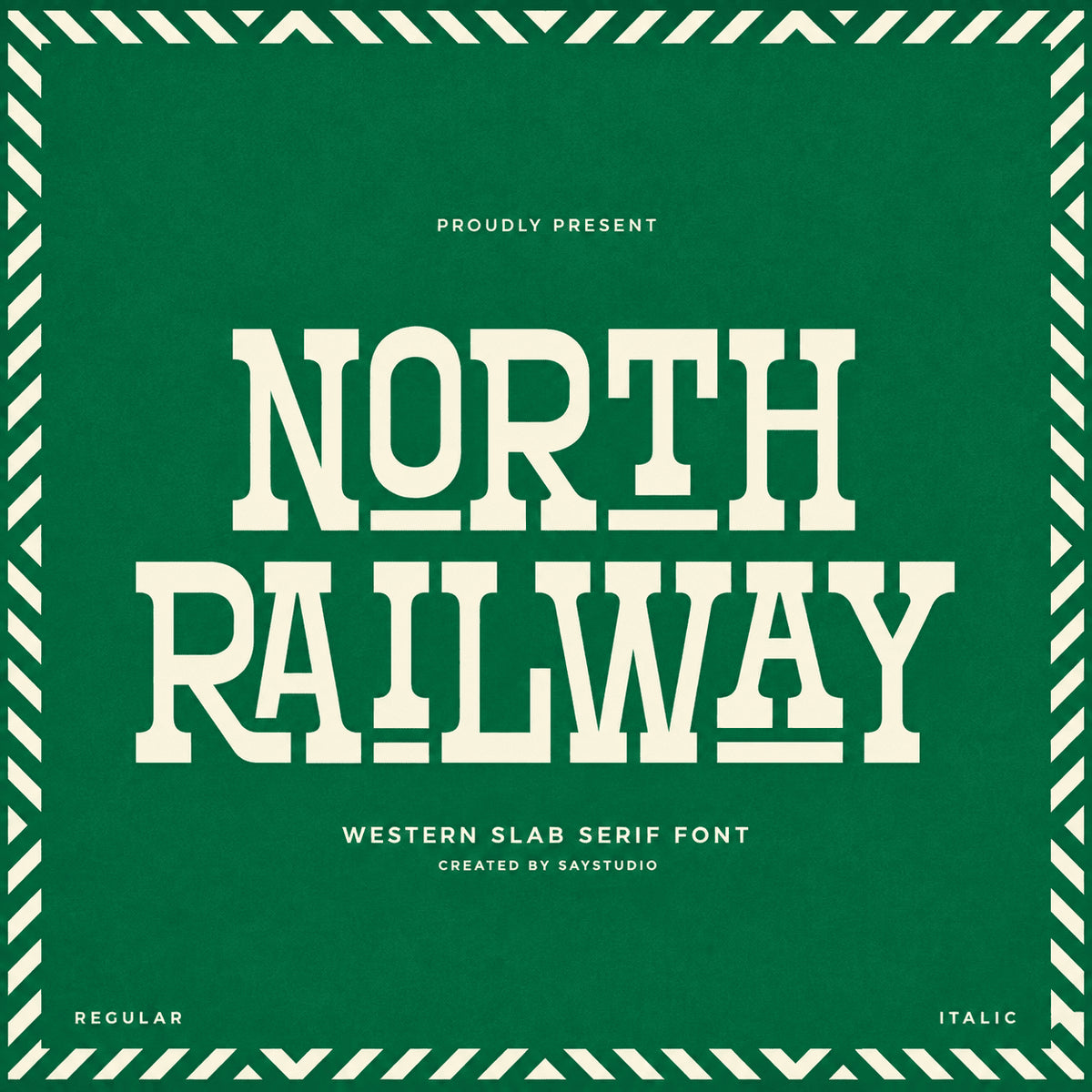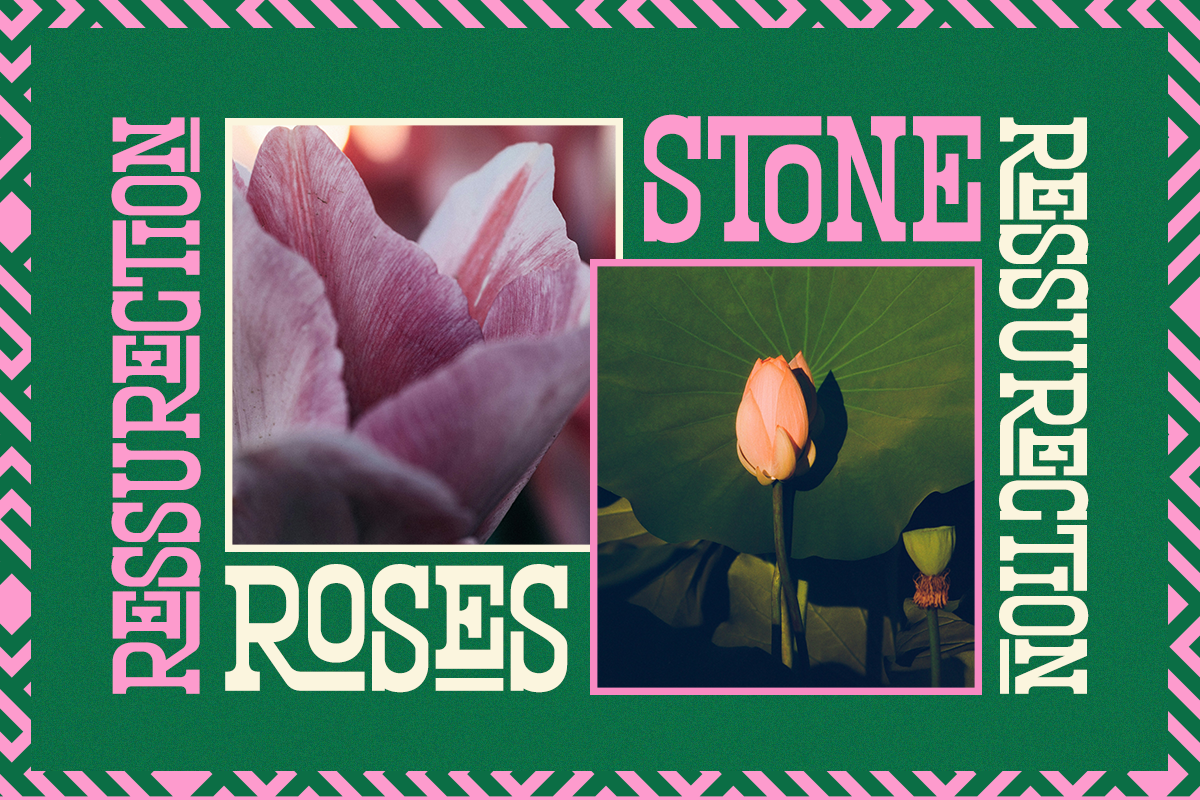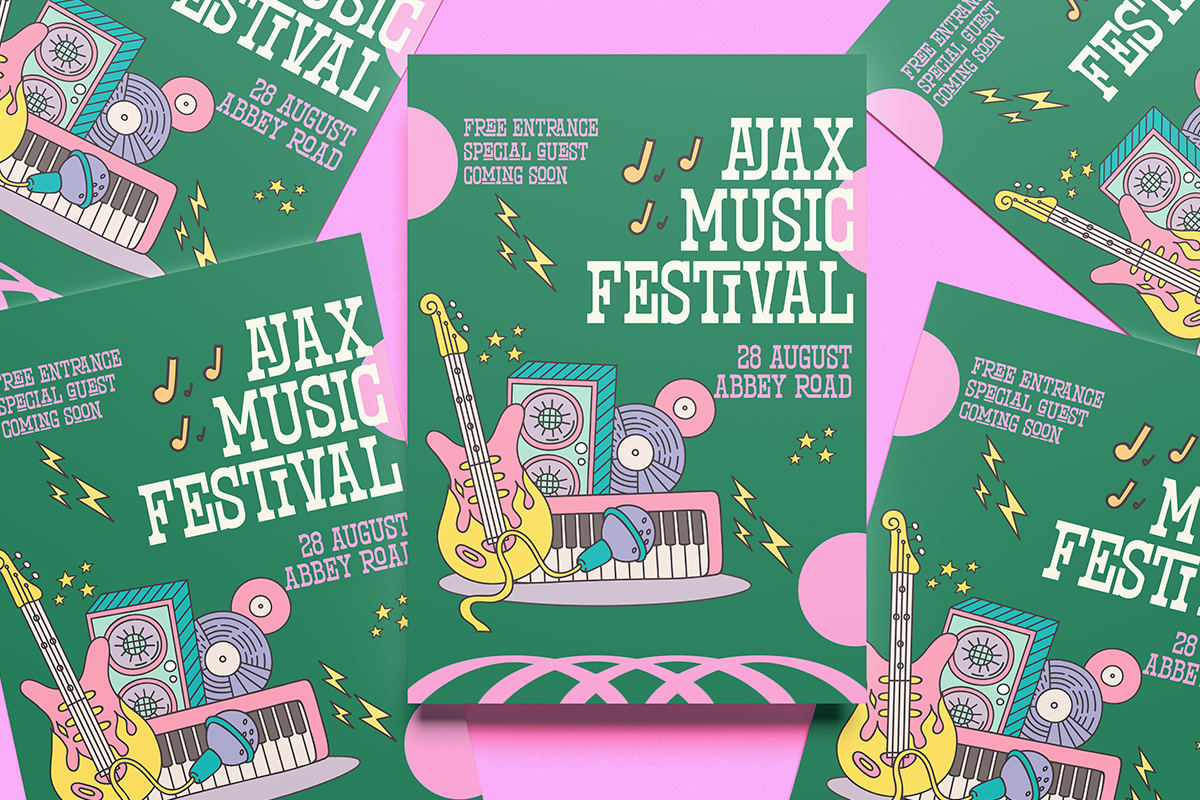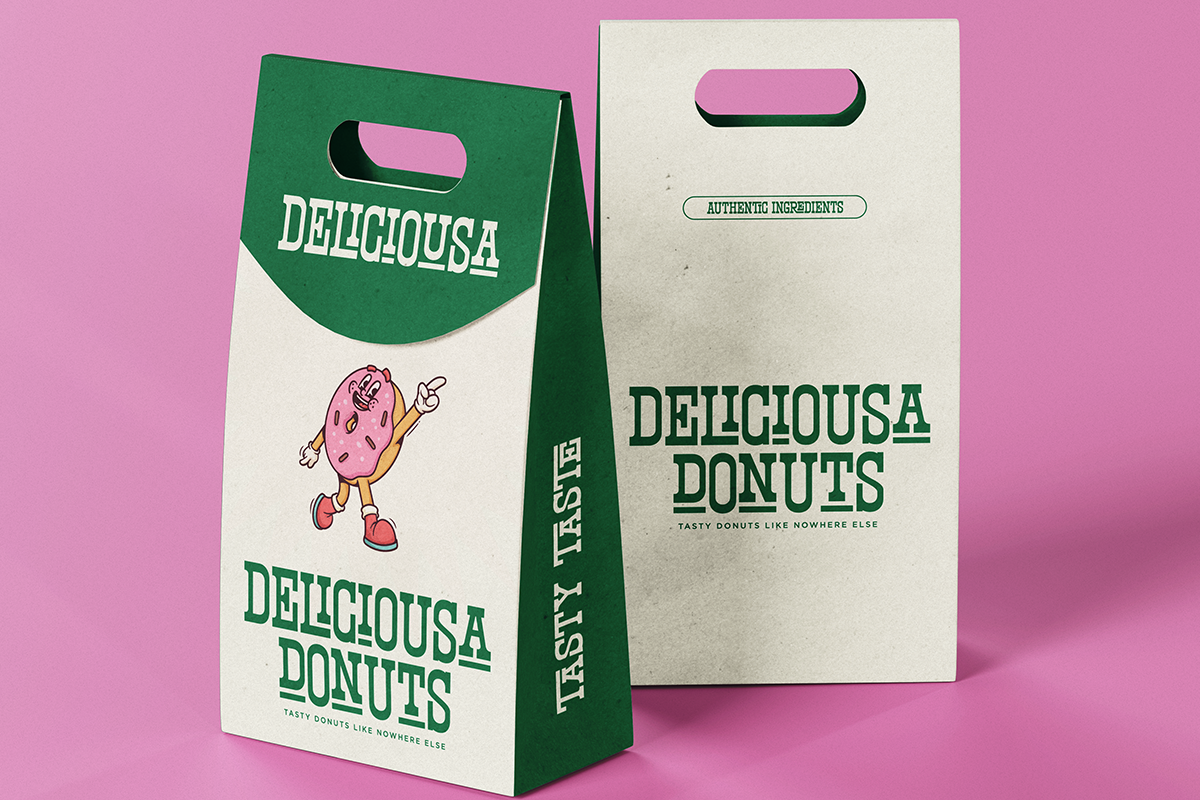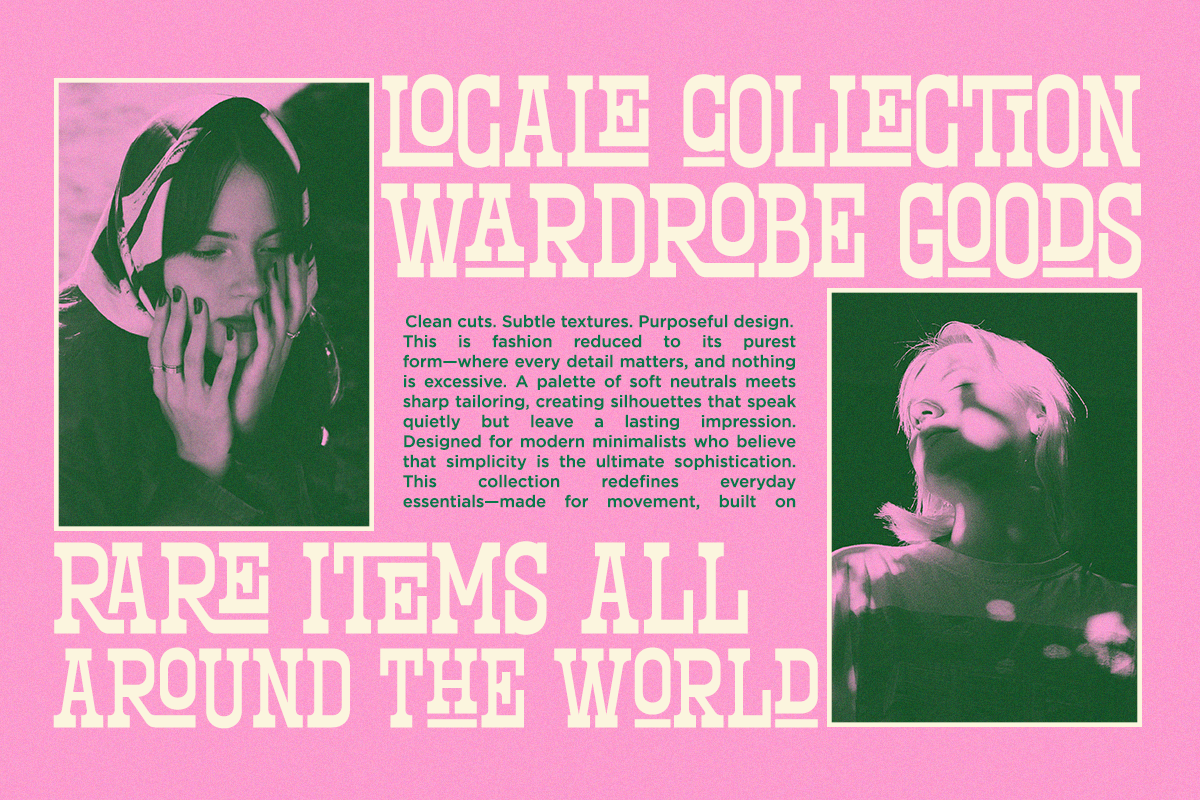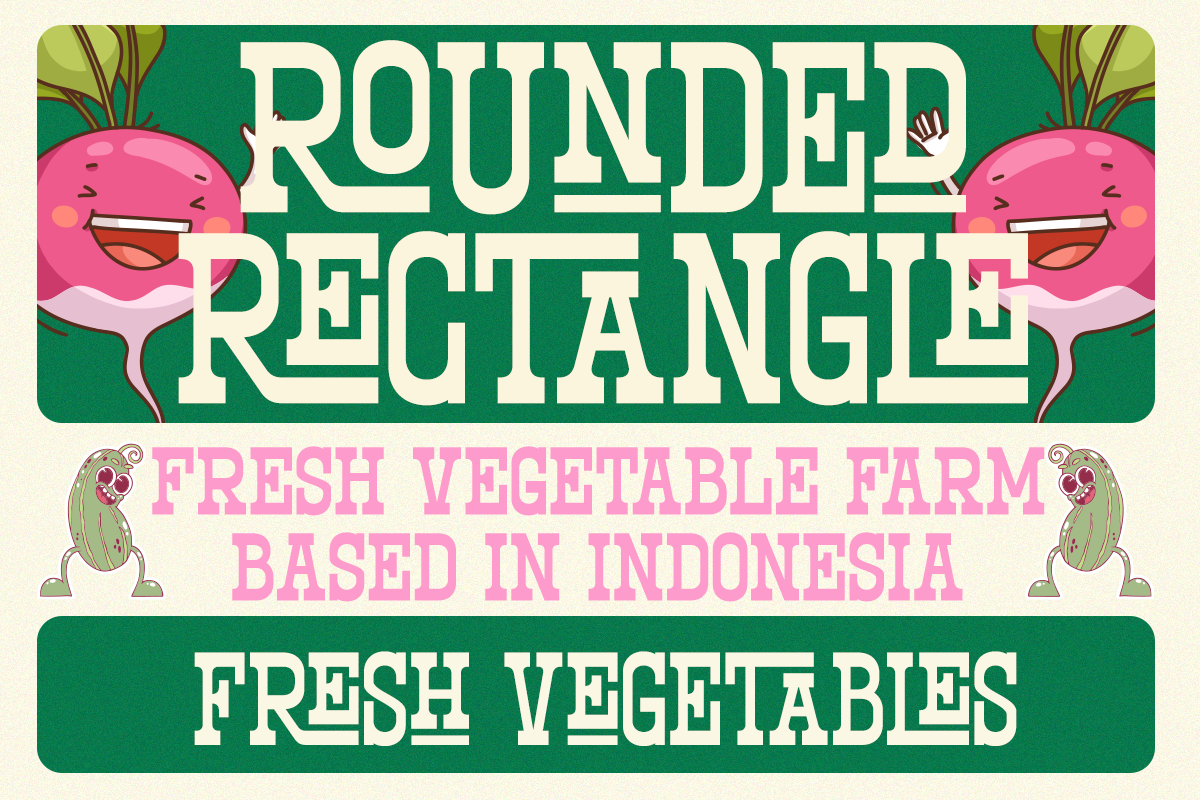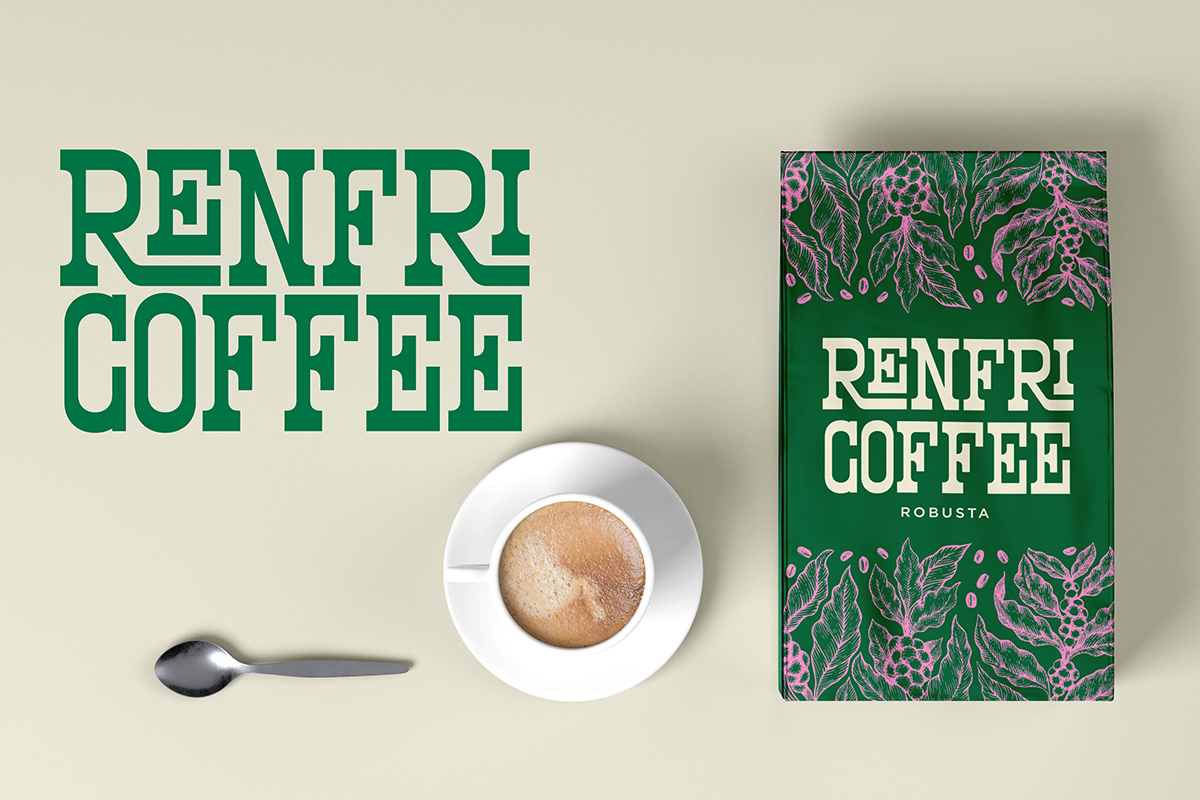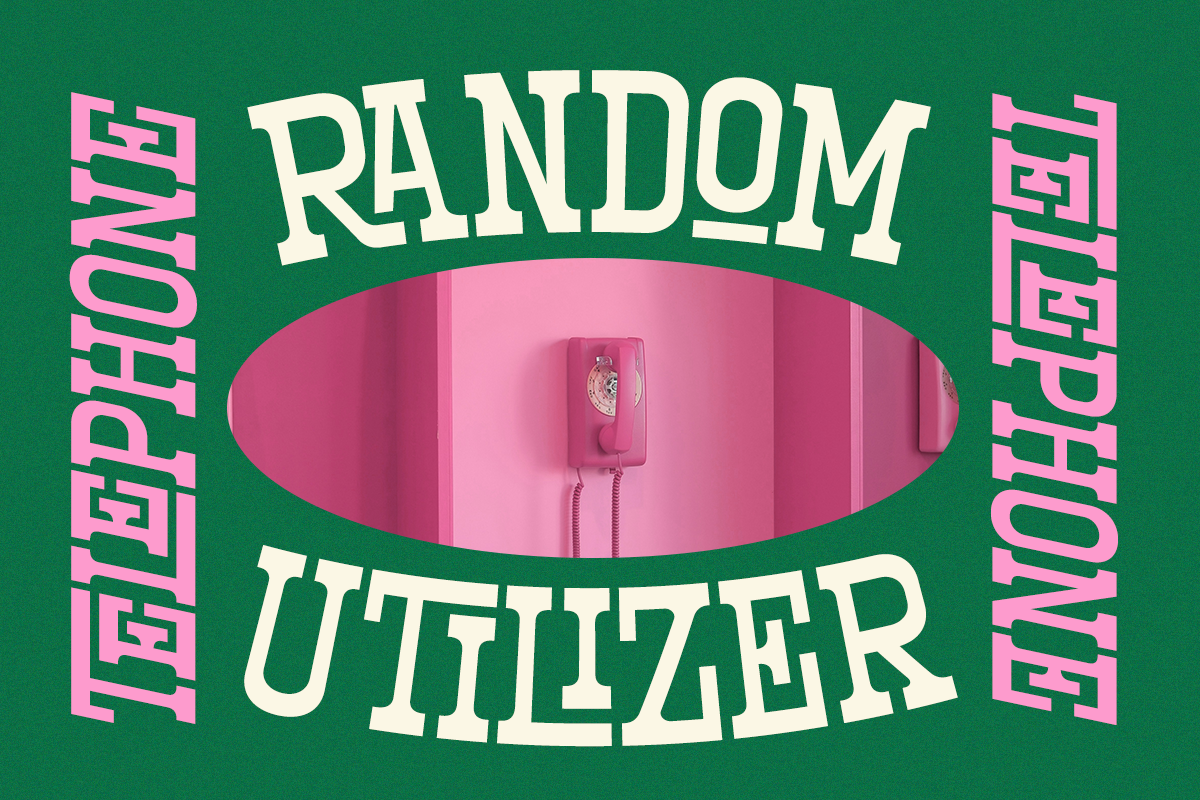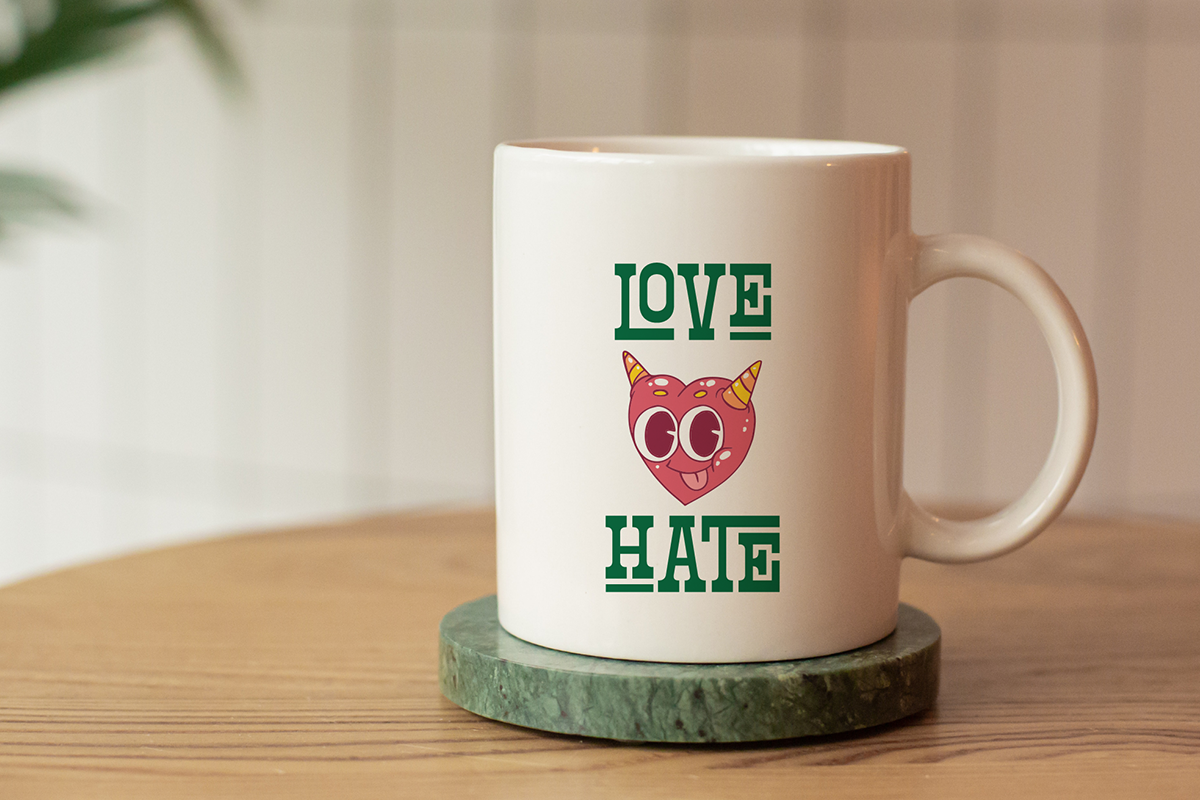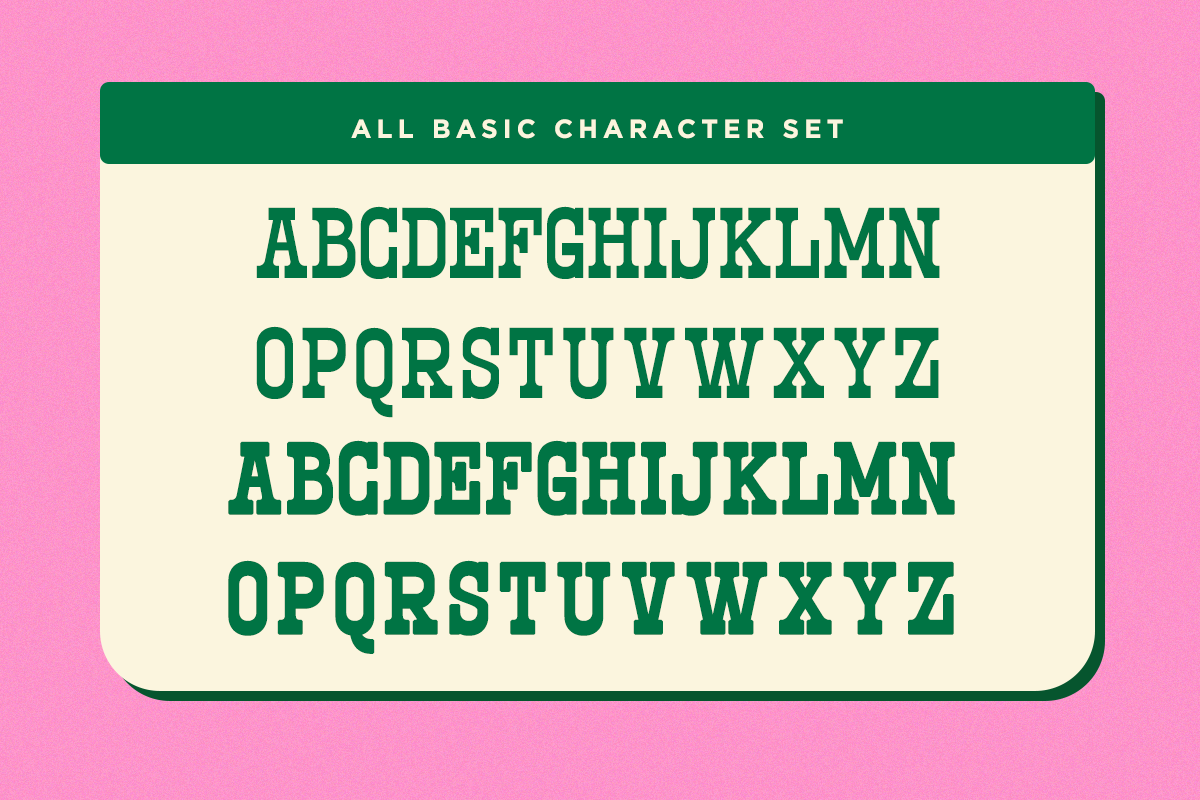
North Railway - Western Slab Serif Font
North Railway is a bold Western slab serif font inspired by classic railway signs, vintage Americana, old-school badges, and traditional Western typography. Its strong slab serifs, condensed letterforms, and distinctive vintage character make it perfect for designs that need a bold and nostalgic statement.
Perfect for logos, branding, posters, signage, packaging, labels, badges, apparel, coffee shops, restaurants, brewery designs, vintage advertisements, and editorial headlines. North Railway also works beautifully for Western, rustic, retro, outdoor, and Americana-inspired projects.
Bring a timeless railway and Western atmosphere to your designs with North Railway.
Special Alternates
Stylistic Ligatures
North Railway is a bold Western slab serif font featuring condensed letterforms and vintage-style detailing. It includes Regular and Italic styles, special alternates, stylistic ligatures, uppercase and lowercase characters, numbers, symbols, punctuation, and multilingual support, available in OTF, TTF, and WOFF formats.